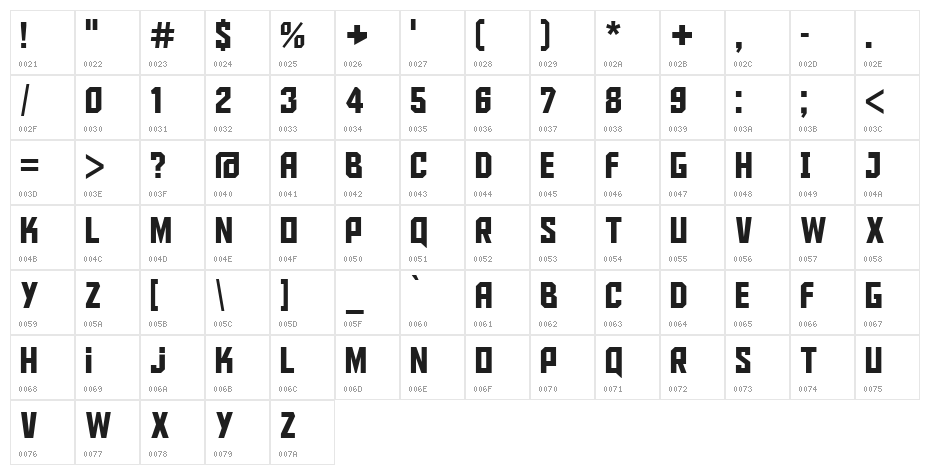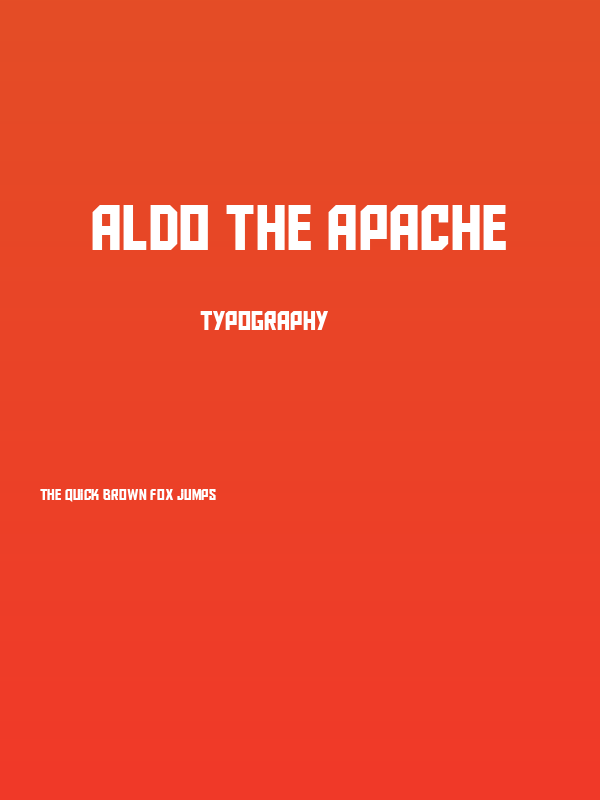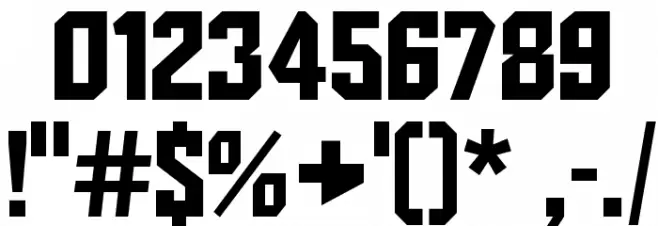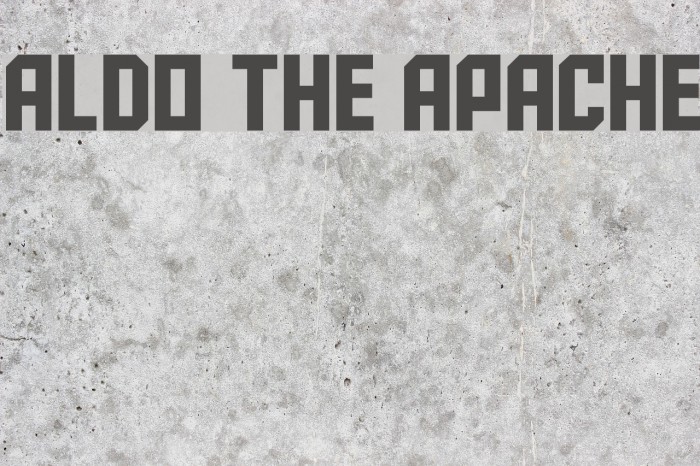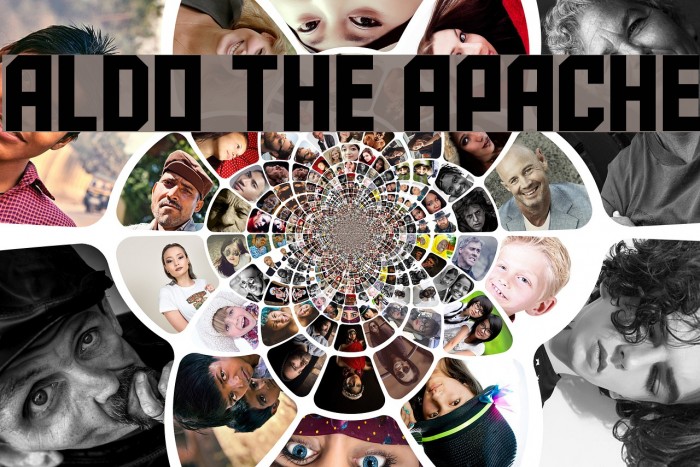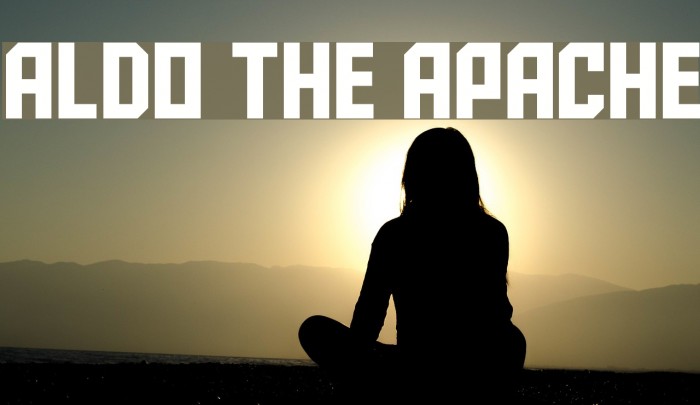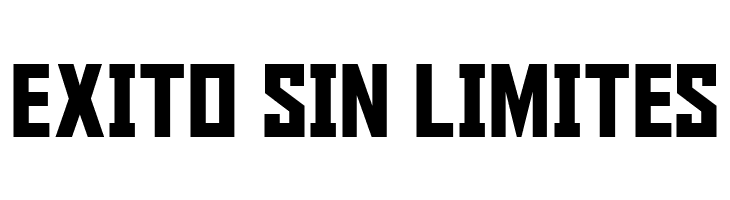
Aldo the Apache Font
Aldo the Apache Description
This font features a bold, geometric design with sharp angles and a blocky appearance. The uppercase and lowercase letters maintain a consistent height, creating a uniform look. The numerals are equally bold, matching the weight and style of the alphabet. Special characters are designed with the same angular, robust style, ensuring cohesion across all glyphs. The font's strong presence makes it ideal for impactful designs where readability and boldness are key. Its unique style is reminiscent of industrial or military themes, making it suitable for projects that require a commanding and assertive typeface.
| Proposed Projects | Ideal for posters, headlines, branding, and any design requiring a strong, impactful typeface. |